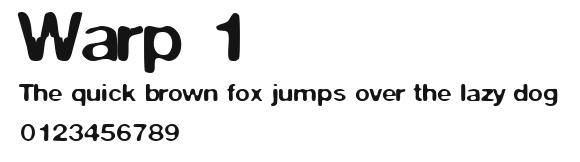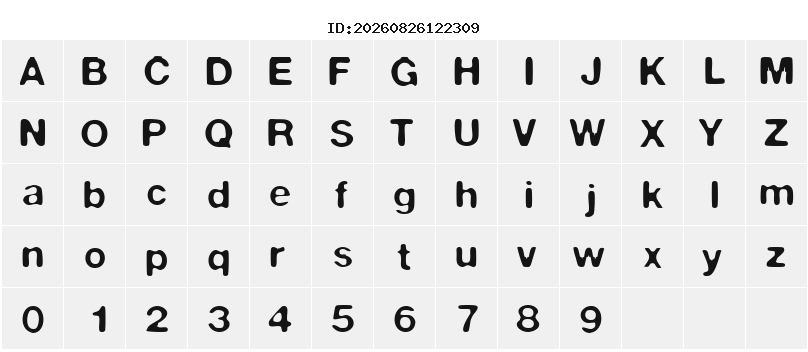
Warp 1 Preview
• Font Name: Warp 1
• Full Font Name: Warp 1
About Warp 1.ttf
Warp 1.ttf is a modern, elegant sans-serif font designed for ultimate readability and visual harmony. Perfect for branding, headlines, web design, and print materials.